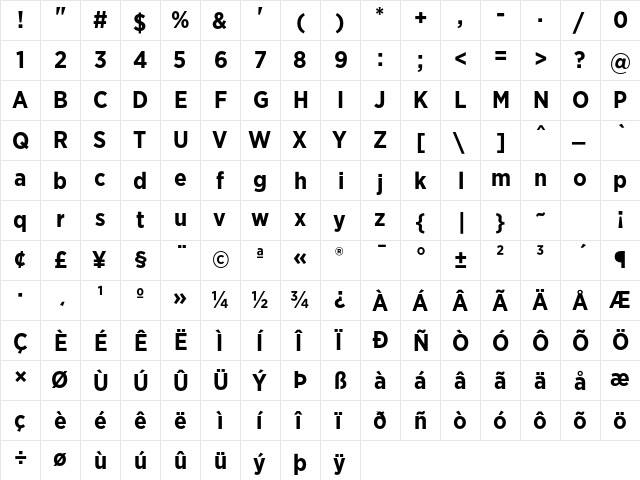
Gotham Narrow Bold Font Preview
| Foundry | Hoefler & Frere-Jones |
| Designer | Hoefler & Frere-Jones |
Design Context for Gotham Narrow Typeface
Gotham Narrow offers clean, dependable letterforms without strong stylistic allegiance, making it a practical choice for designers who need flexibility. The heavy weight commands attention and anchors typographic hierarchies. The condensed width makes it efficient for tight spaces without sacrificing legibility.